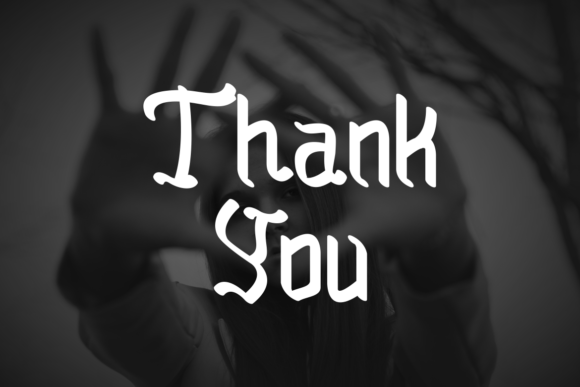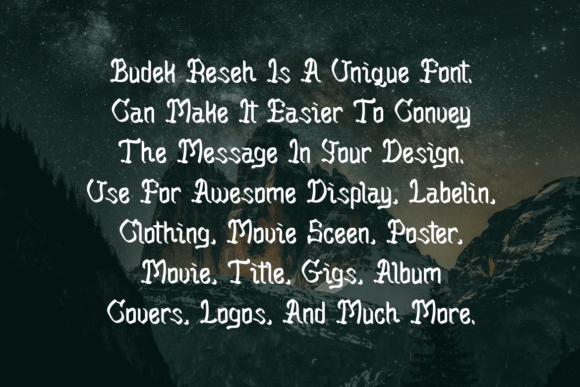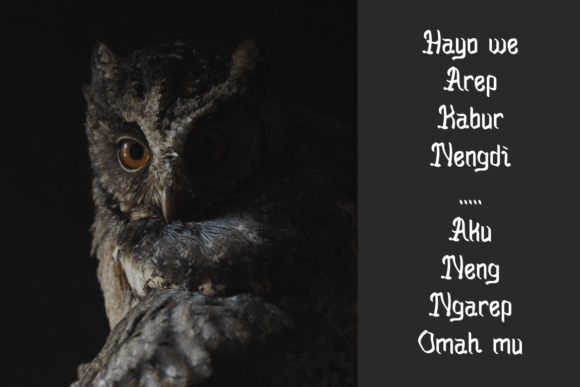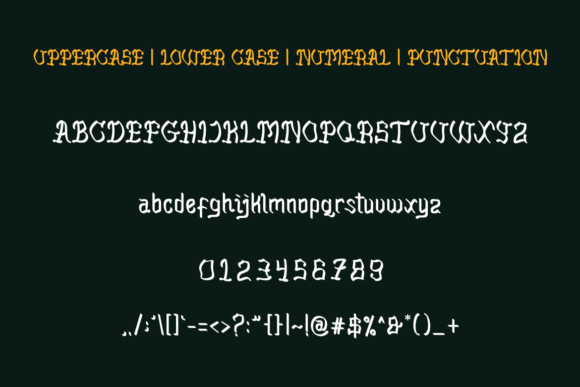
Unlock Your Creativity with the Budek Reseh Font
There’s nothing quite like the thrill of discovering a new font that speaks to your creative soul. You’re working on a project, pouring your heart and imagination into every detail, and then – BAM! – the perfect font comes along and elevates your work to the next level. For designers, finding that elusive font can be a game-changer.
Enter the Budek Reseh Font, a bold and thick lettered font that’s ready to add some serious impact to your projects. With its PUA encoded design, you’ll have access to a world of glyphs and swashes, allowing you to customize your work with ease. Whether you’re working on a logo, poster, or graphic novel, the Budek Reseh Font is the perfect addition to your toolkit.
Budek Reseh Font Key Features
- Unique Characteristics: Budek Reseh Font features a unique, handwritten style with a mix of modern and traditional elements, making it perfect for creative and artistic projects.
Budek Reseh Font Review
As a designer, I’ve had the chance to work with the Budek Reseh Font, and I must say it’s an interesting choice. ✨ The font has a unique, quirky feel to it that can add a lot of personality to your designs. The bold weights are particularly striking, and can help to grab attention in a crowded space.
One of the things I appreciate about Budek Reseh is its versatility. It works well for both digital and print applications, and can be used in a variety of contexts, from headings to body text.
- Unique, quirky feel that adds personality to designs ✨
- Bold weights are striking and effective at grabbing attention
- Versatile and can be used in both digital and print applications
- May not be suitable for more formal or professional designs ⚠️
- Can be a bit difficult to read at smaller font sizes
- May not be as accessible for users with certain visual impairments
Overall, I think Budek Reseh is a great choice for designers who want to add a bit of personality to their work. Just be aware of its limitations and use it thoughtfully.
Common Use Cases for Budek Reseh Font
Budek Reseh font is commonly used for:
1. Creative and artistic projects.
2. Fashion and lifestyle branding.
3. Custom typography elements and graphics.